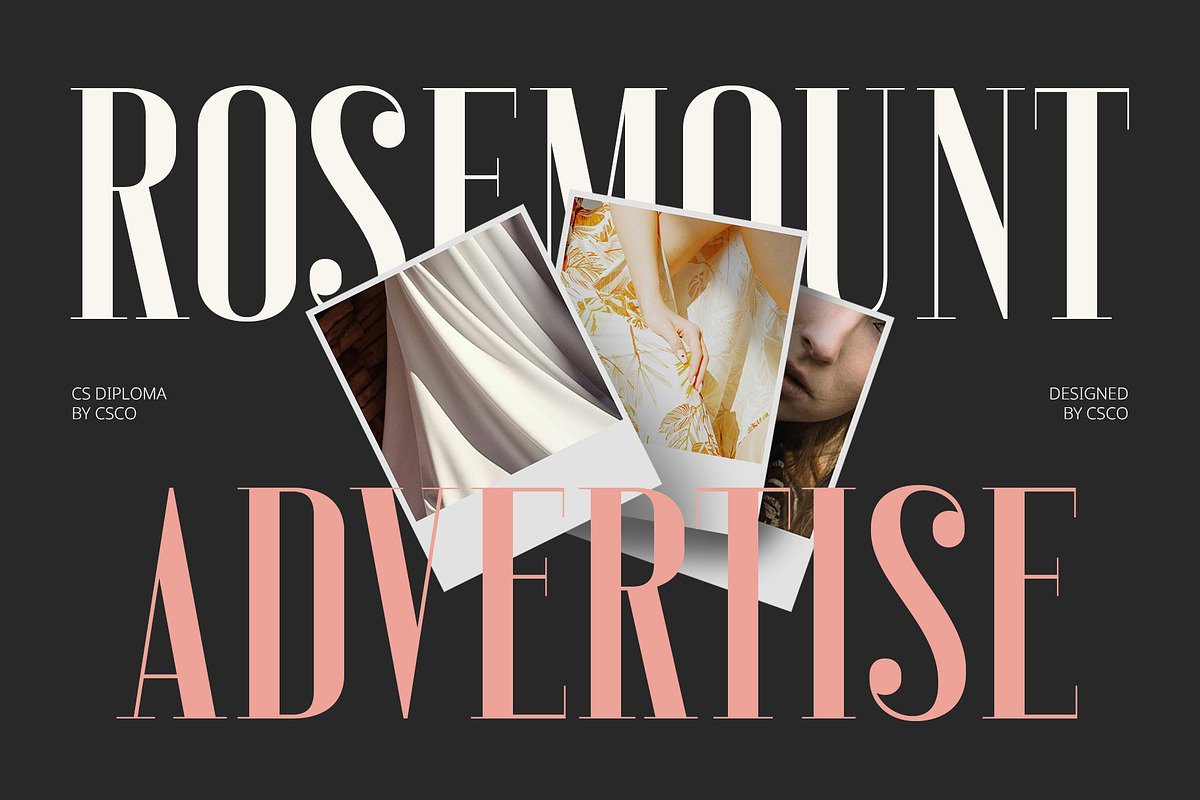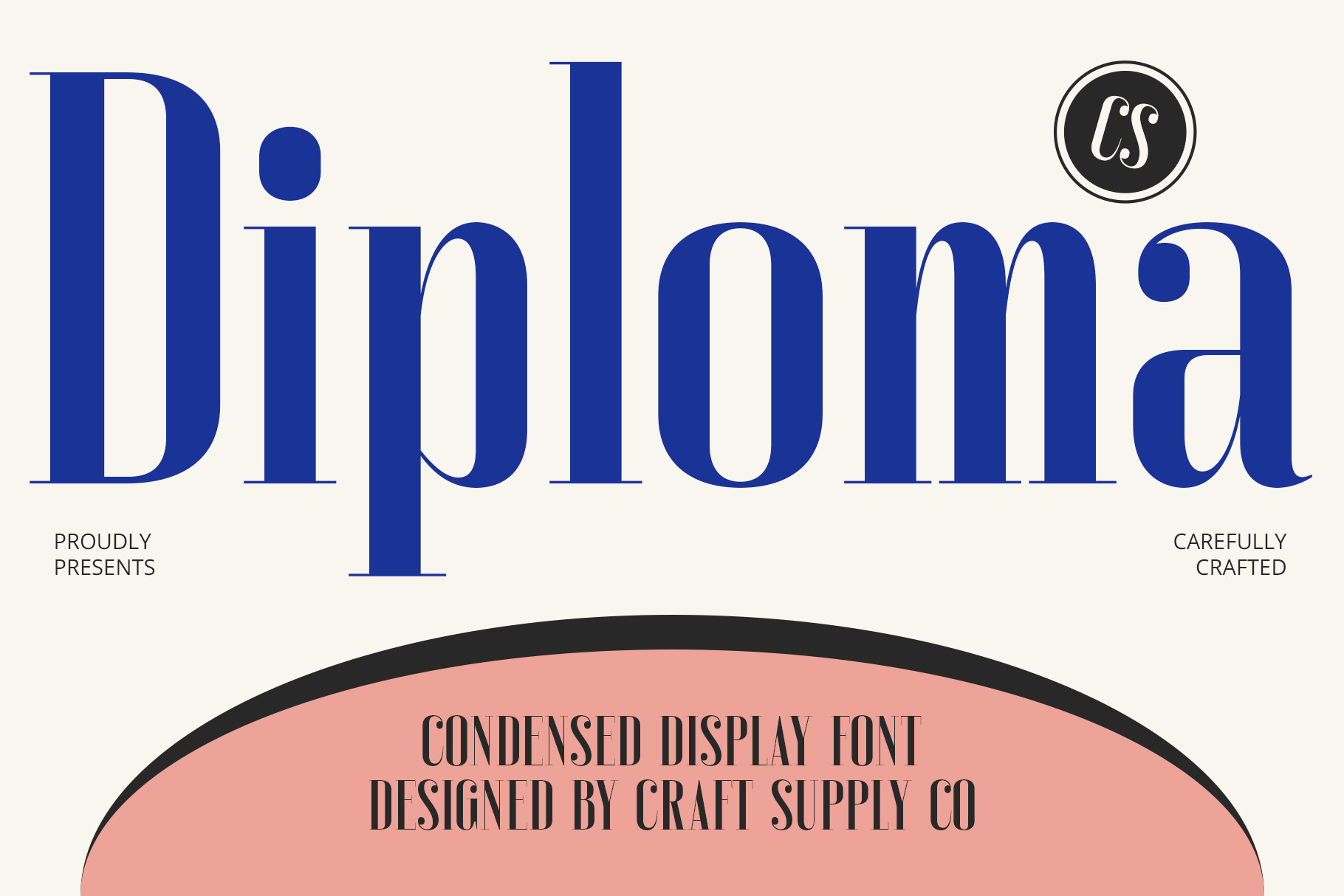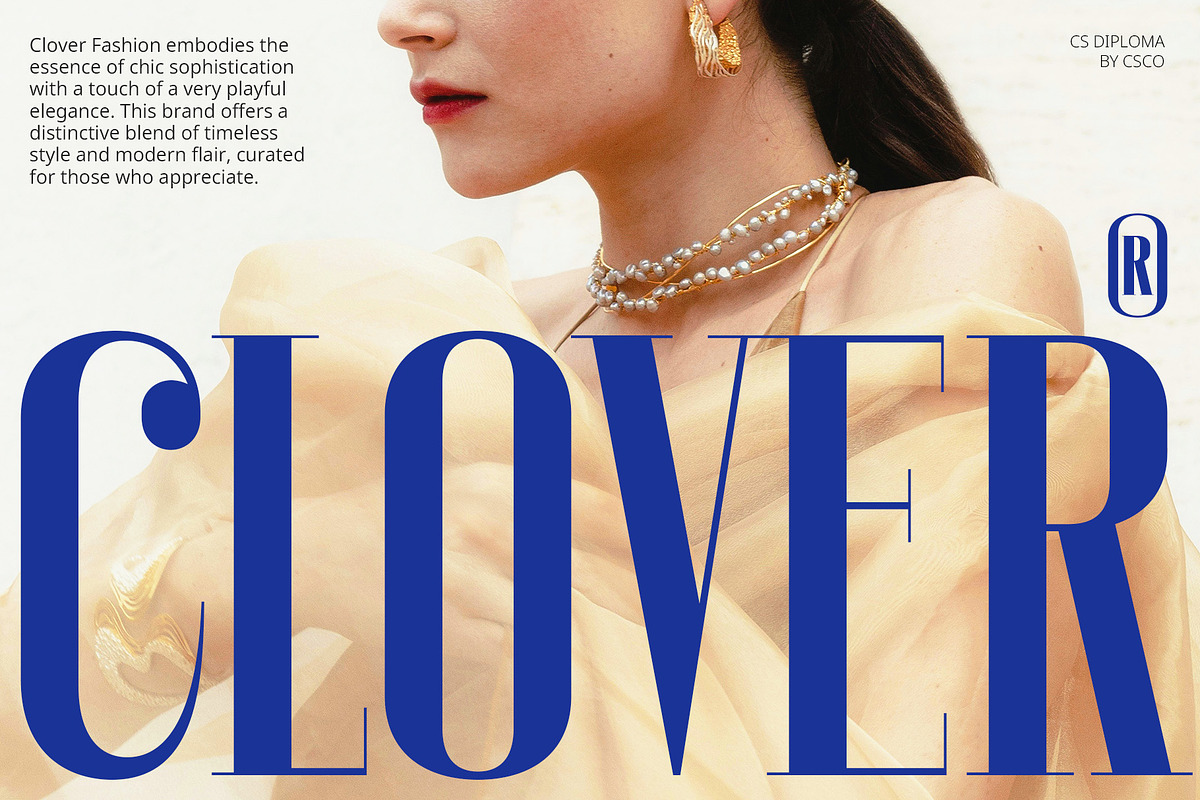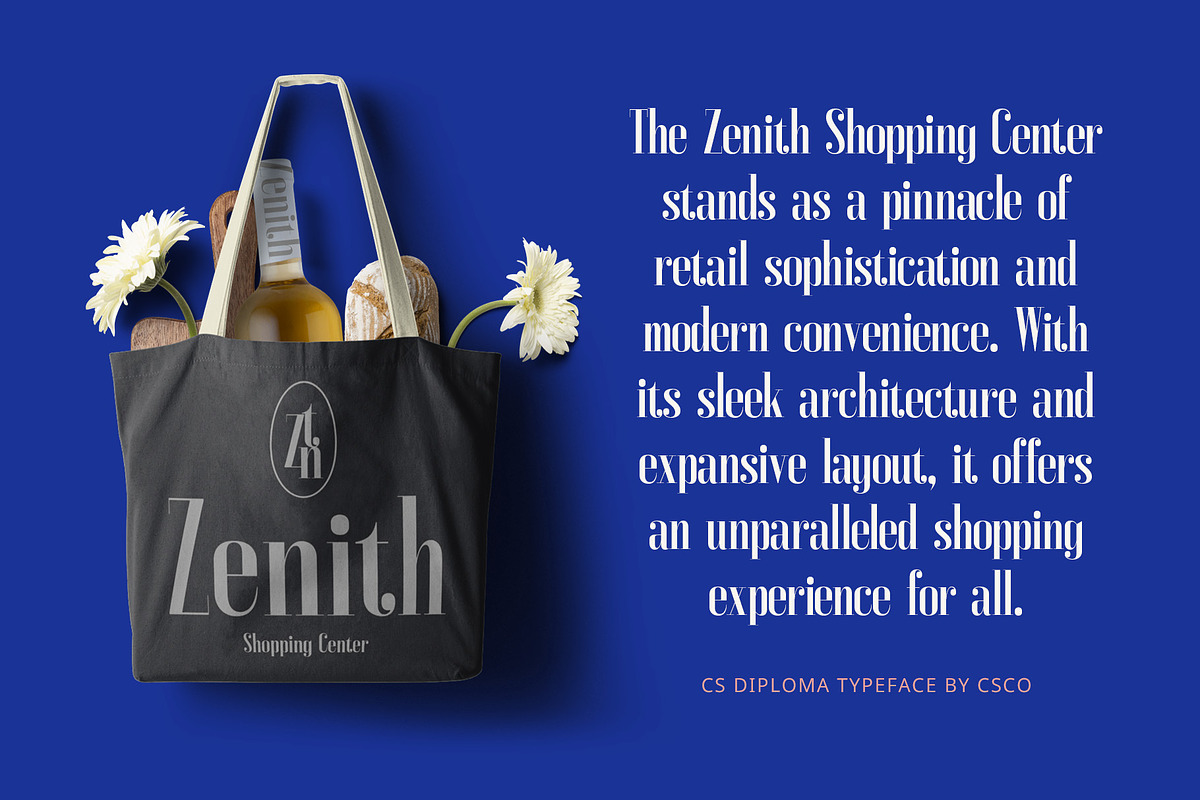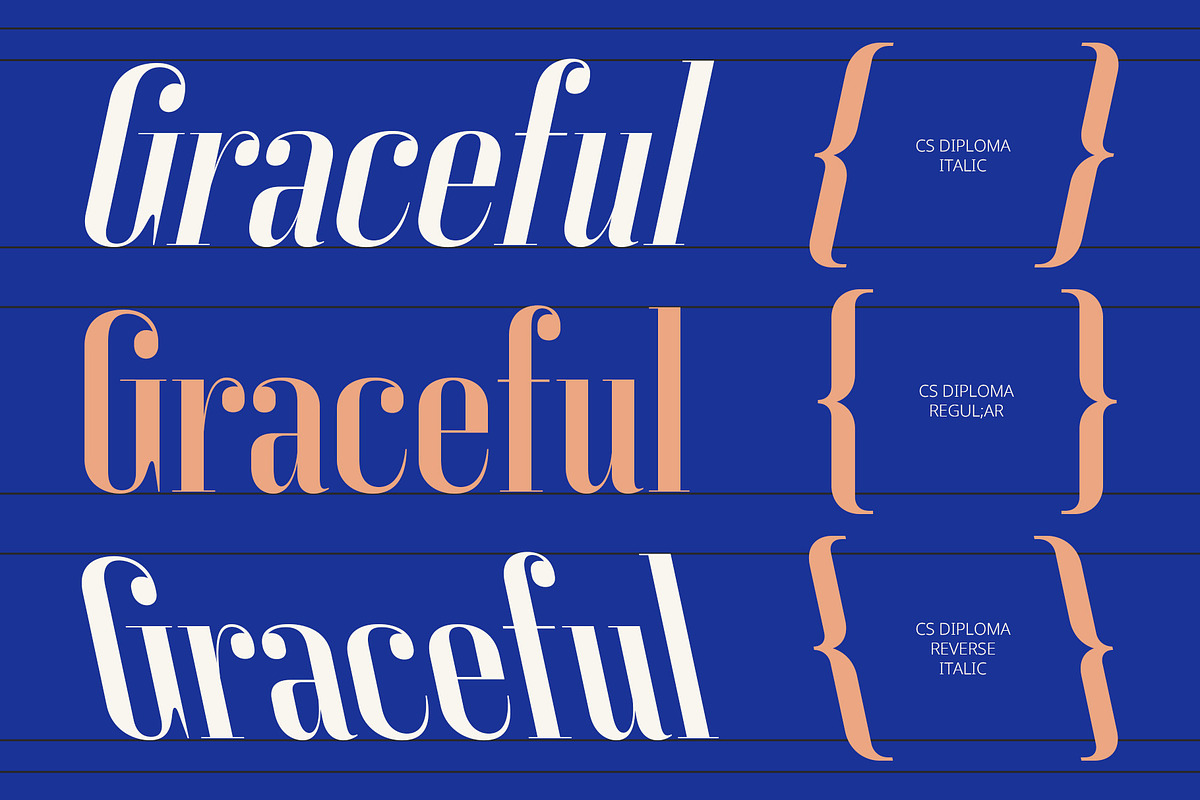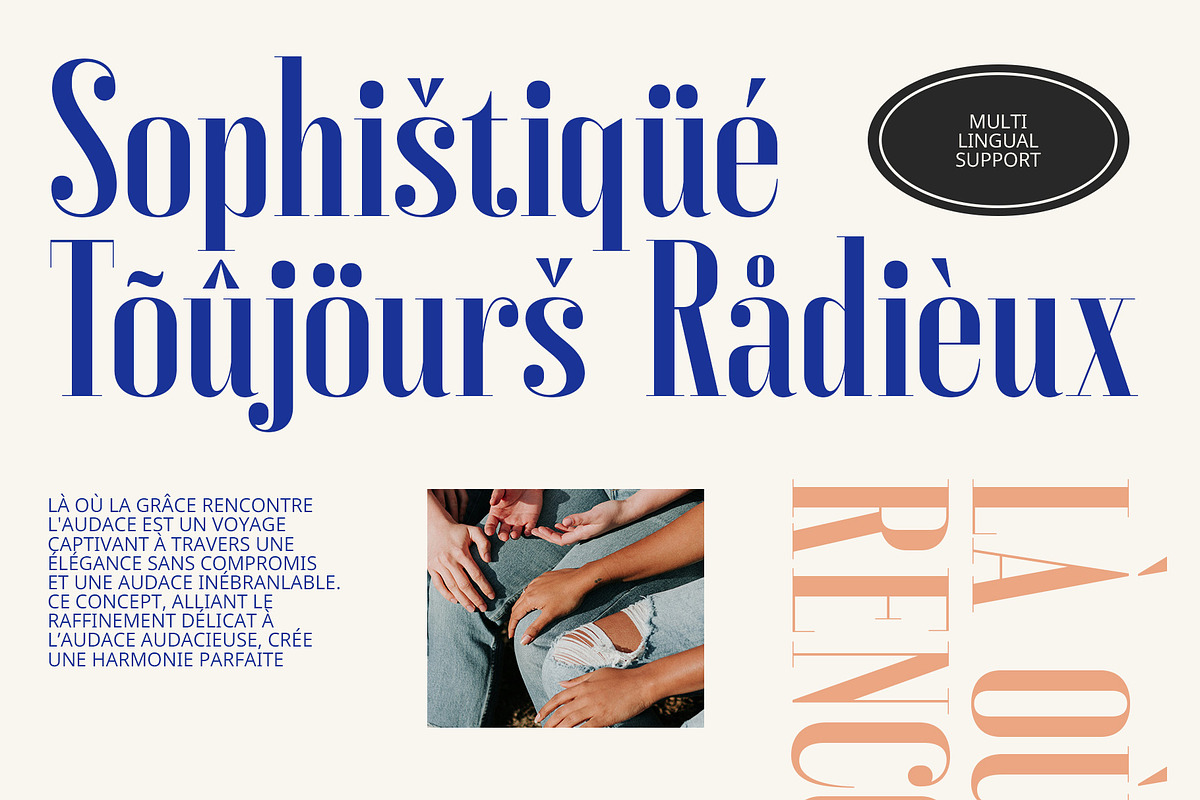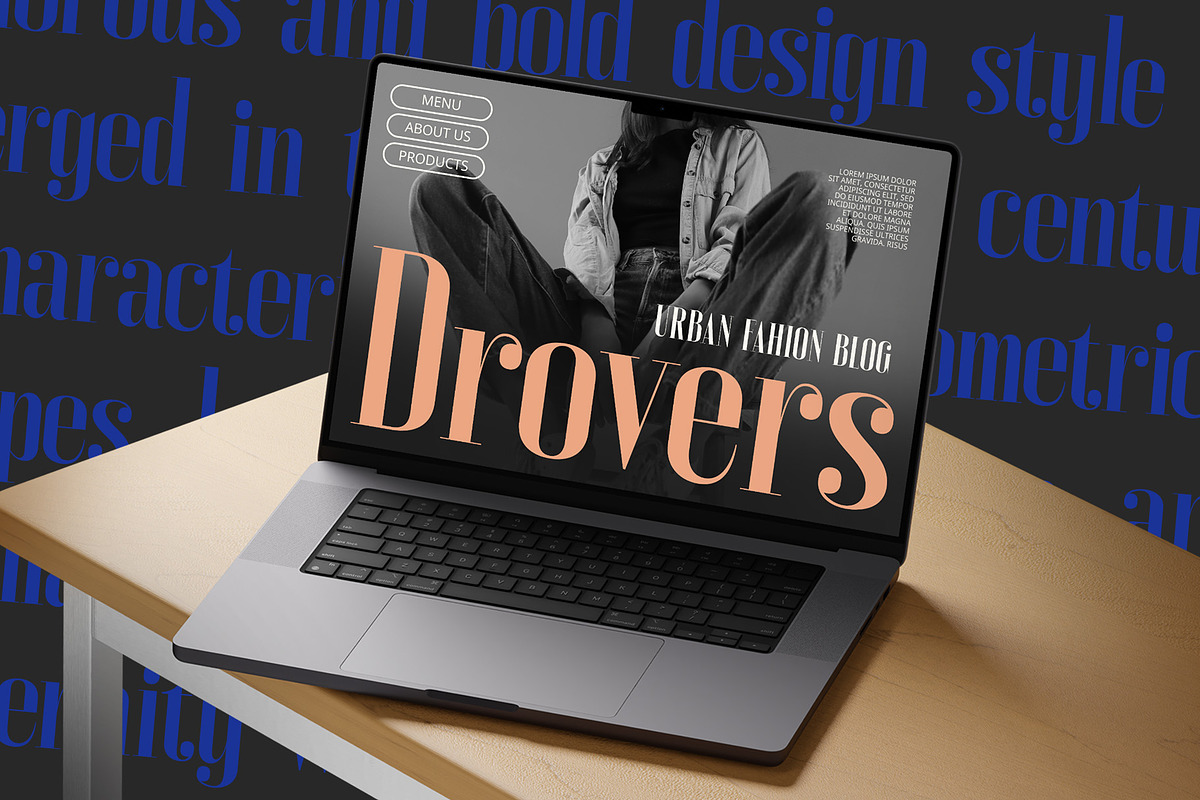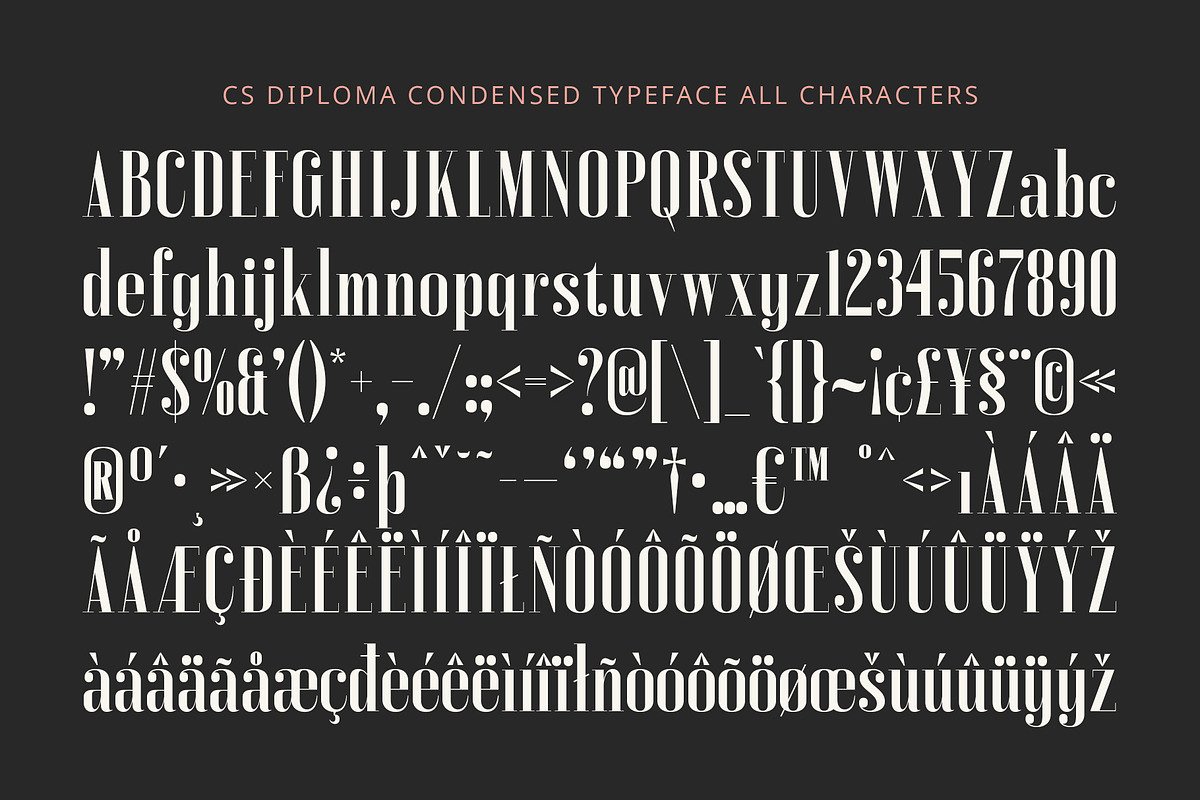
CS Diploma – Condensed Font
CS Diploma – Condensed Font: Sleek Elegance in a Compact Form
Elegant and Space-Efficient Design CS Diploma – Condensed Font is a modern serif typeface that combines traditional elegance with a sleek, space-efficient design. Its condensed form allows for a high density of text in limited spaces while maintaining the refined characteristics of classic serifs. Featuring clean lines, high contrast, and well-defined serifs, this font strikes a sophisticated balance between style and functionality.
Professional and Readable Ideal for professional applications such as branding, advertising, and print materials, CS Diploma ensures optimal readability even in compact settings. Its high contrast between thick and thin strokes enhances legibility, making it a perfect choice for designs where both elegance and space efficiency are crucial.
Versatile for Various Applications CS Diploma’s versatility extends across a range of design projects. Whether used for impactful headlines, detailed advertising, or elegant print materials, its condensed design provides a polished and professional appearance. This font seamlessly integrates classic serif elements with modern demands, offering a sophisticated solution for any text-heavy design.
- CS Diploma Regular
- CS Diploma Italic
- CS Diploma Reverse Italic